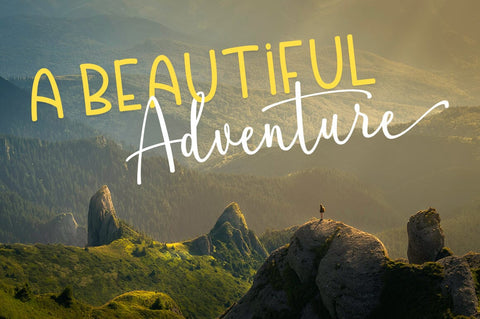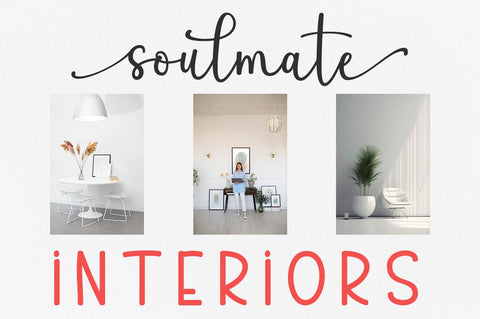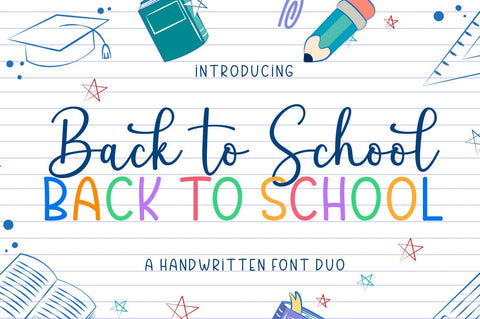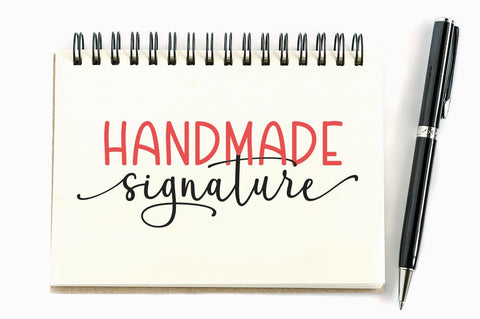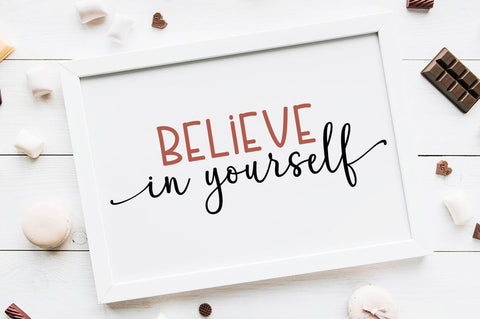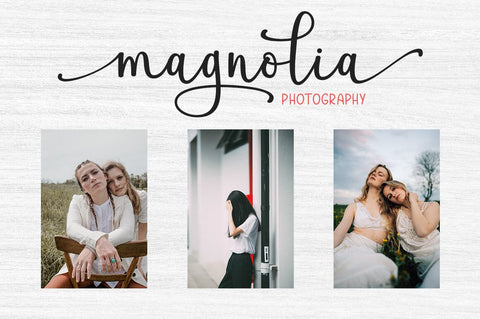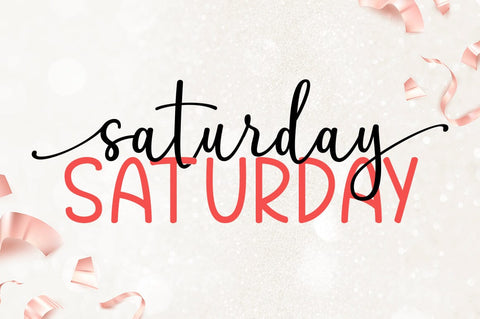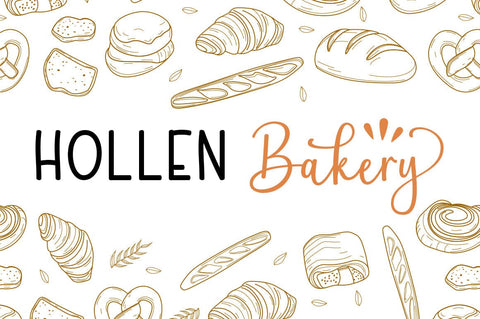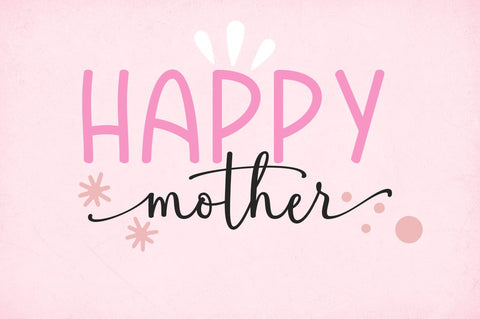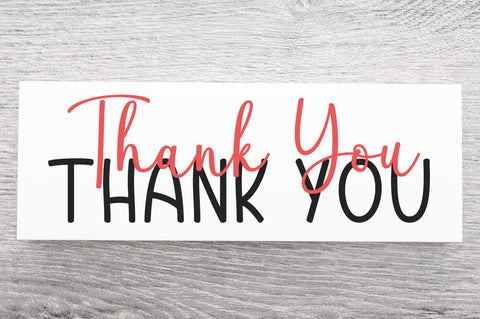
Back To School Font Duo
Back To School consists of two fonts designed to complement each other perfectly. Together or apart, these fonts are ideal for adding a chic and cheery touch to your crafts. This font is PUA encoded which means you can access all glyphs and swashes with ease!